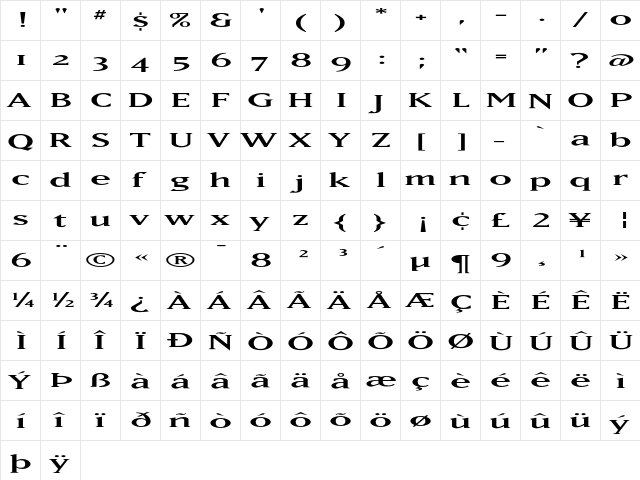
MatrixWide Medium Font Preview
MatrixWide Medium
Design Context for MatrixWide Typeface
MatrixWide offers clean, dependable letterforms without strong stylistic allegiance, making it a practical choice for designers who need flexibility.
Pro Tip: Use MatrixWide in both headline and body roles to test its range before committing to a single application.